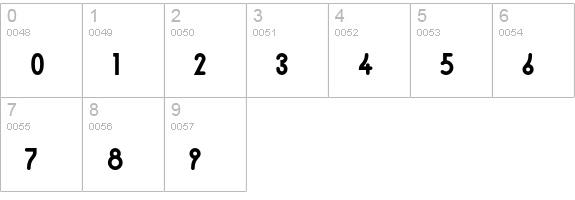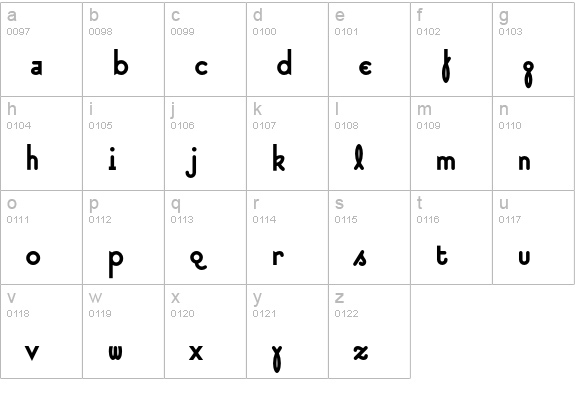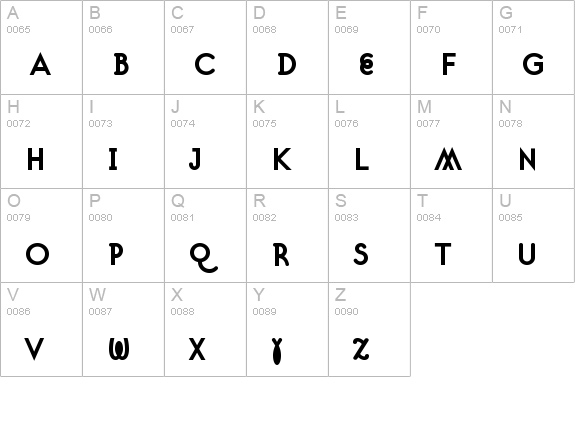
SuburbanBold Font Details
SuburbanBold font is a modern and stylish typeface that exudes confidence and sophistication. With its clean lines and bold design, this font is perfect for making a statement in any project. Whether you're designing a logo, creating a poster, or crafting a social media post, SuburbanBold will help your text stand out and grab attention. The best part? SuburbanBold is available for free download at FontsMarket.com. This means you can elevate your designs without breaking the bank. Don't miss out on this fantastic font that combines elegance with a touch of urban flair. Download SuburbanBold today and take your typography to the next level.